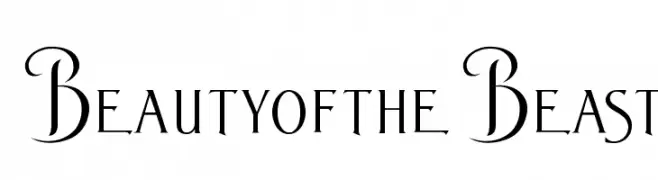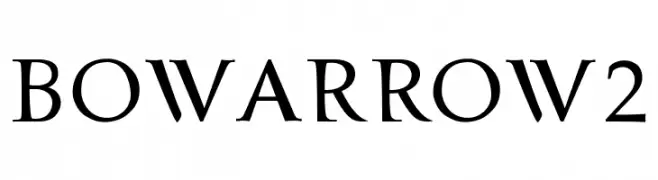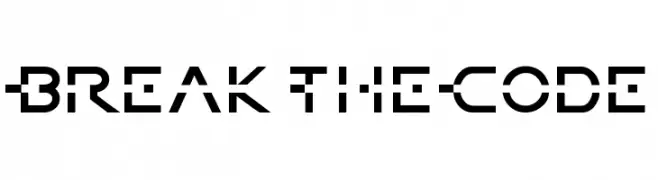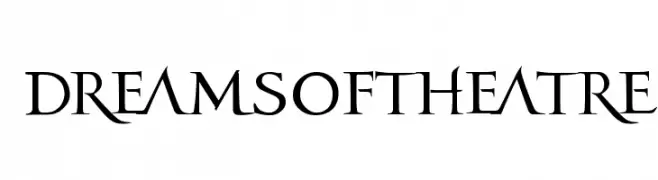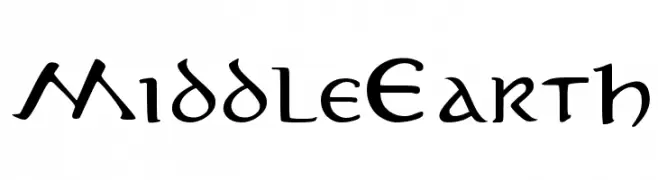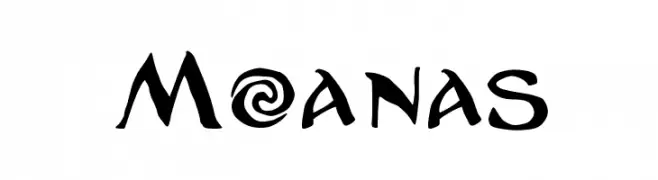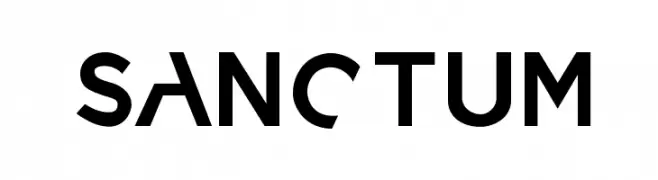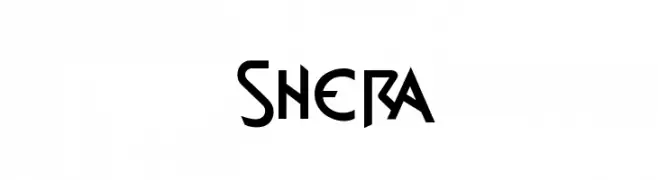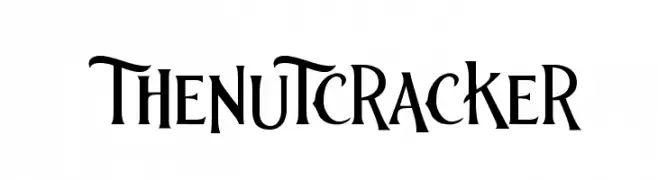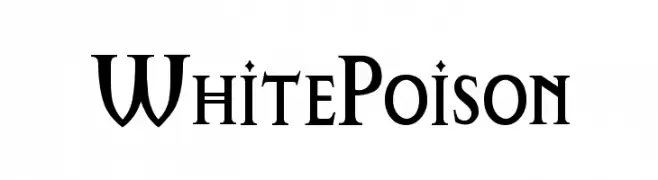
Moanas Font
A bold, artistic font with a hand-drawn, whimsical style.
warcraft Font
A bold, angular font with a medieval, fantasy-inspired design.
mightyspidey Font
A modern, italicized font with a futuristic, tech-inspired design.
gothicominimo Font
A bold, angular Gothic-style font with sharp serifs and a medieval aesthetic.
MiddleEarth Font
A medieval-inspired font with calligraphic elements and a fantasy aesthetic.
sanctum Font
A bold, geometric font with sharp angles and a modern aesthetic.
Frozito Font
A bold, gothic-style font with sharp edges and a distressed texture.
shera Font
A bold, angular font with a futuristic and geometric design.
BlackPearl Font
A bold, dynamic font with sharp serifs and high contrast, perfect for dramatic designs.
Artemis Font
A bold, decorative font with sharp, angular edges and high contrast strokes.
SERPENTINE Font
A bold serif font with sharp, angular serifs and a modern twist.
BeautyoftheBeast Font
An elegant and whimsical font with decorative, flowing letterforms and intricate curves.
AlphaCentauri Font
A modern, geometric font with bold, angular letterforms and a futuristic aesthetic.
OmegaCentauri Font
A bold, geometric font with a futuristic and modern design.
DRagonlord Font
A bold, decorative font with elegant curves and sharp serifs.
outerorbit Font
A bold, futuristic font with angular, geometric lines.
thenutcracker Font
A whimsical and decorative font with playful letterforms and festive flair.
Diabolica Font
A bold, gothic-inspired font with sharp serifs and a dramatic style.
WhereisAlicedemo Font
A whimsical, gothic-style font with playful serifs and a hand-drawn appearance.
thedarkestpearl Font